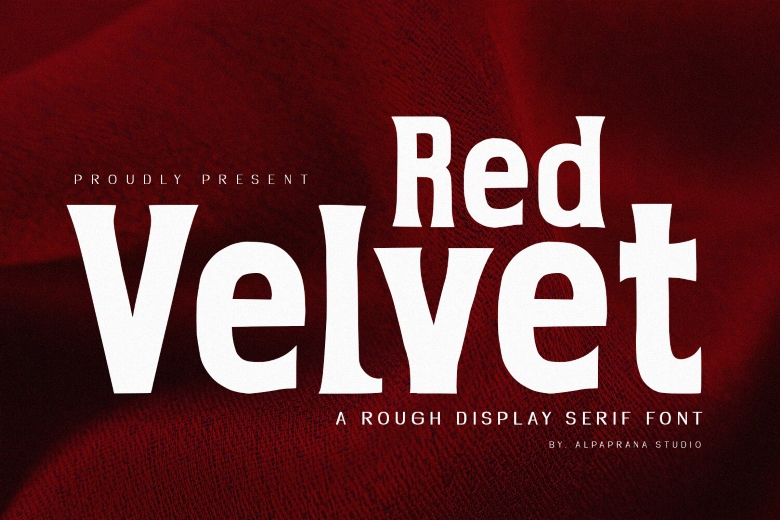
Red Velvet Font
Red Velvet looks like a rude and thick serif type face having both class and trendy looks. It will be best suited for magazine, packaging, posters, shopping bags, t-shirts, book covers, photography special events as well as other designs.
Red Velvet Serif Font